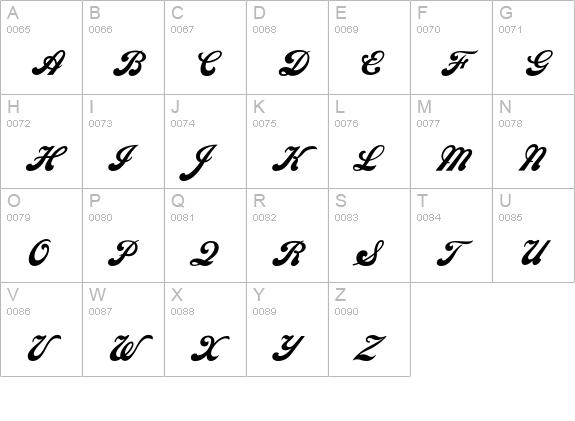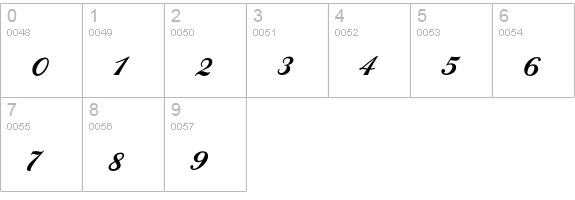
SedonaScriptFLF Font Details
SedonaScriptFLF is a beautifully crafted font that exudes elegance and sophistication. With its graceful strokes and flowing curves, this script font is perfect for adding a touch of charm and style to any design project. The unique and intricate letterforms of SedonaScriptFLF make it stand out from the crowd, making it a perfect choice for logos, branding, invitations, and more. Its versatility allows it to be used in both formal and informal settings, making it a must-have font for any designer's toolkit. But what makes SedonaScriptFLF even more special is that it is free! Yes, you heard that right. This stunning font is freely available to download at FontsMarket.com. Whether you are a professional designer or a hobbyist, you can now enjoy the beauty and versatility of SedonaScriptFLF without breaking the bank. So why wait? Visit FontsMarket.com today and download SedonaScriptFLF for free. Elevate your designs and bring them to life with this exquisite font that will surely leave a lasting impression. Don't miss out on this amazing opportunity to add a touch of elegance to your creations.